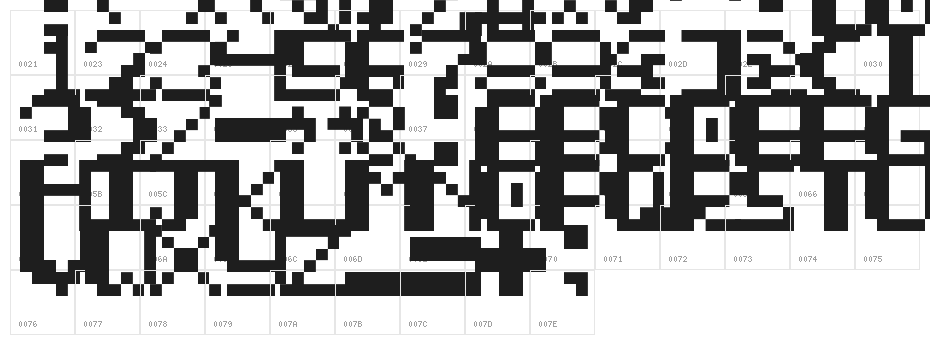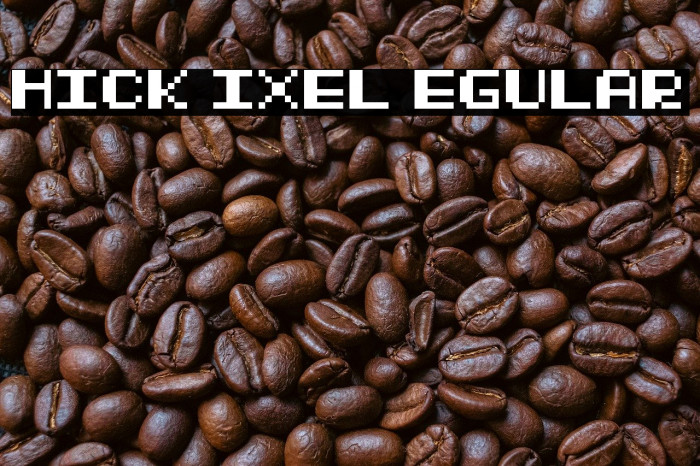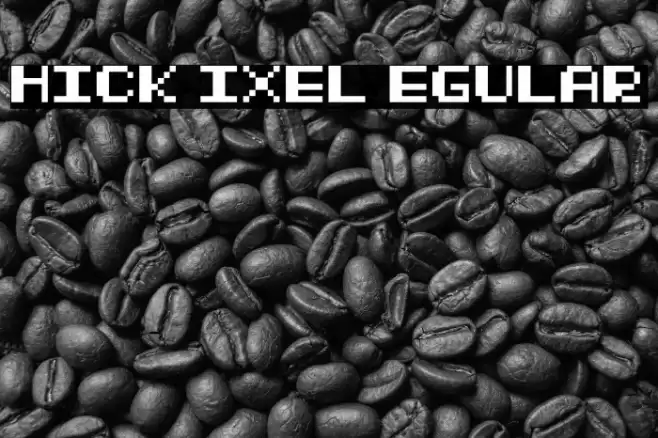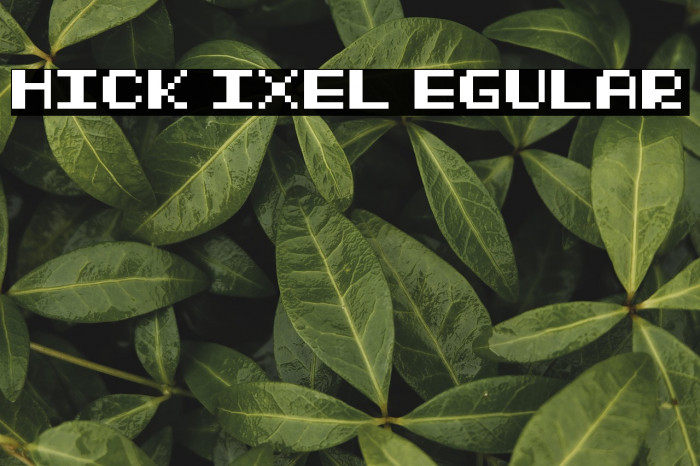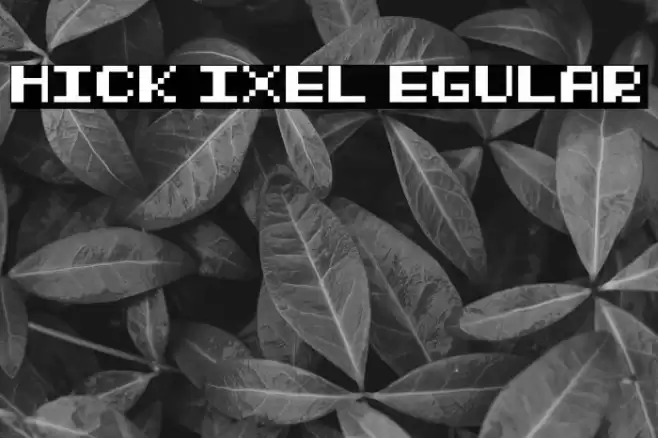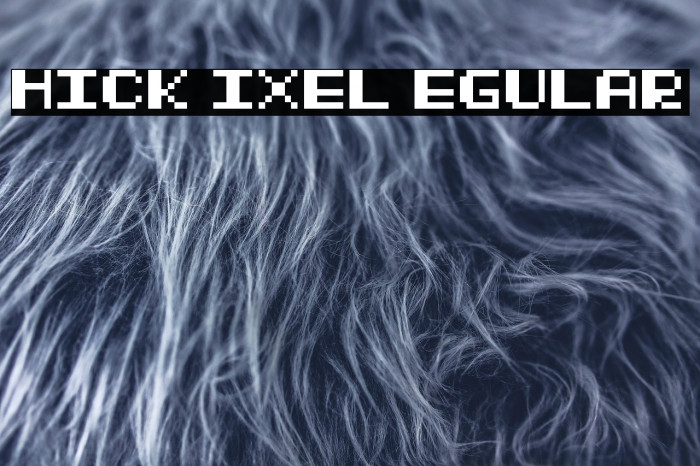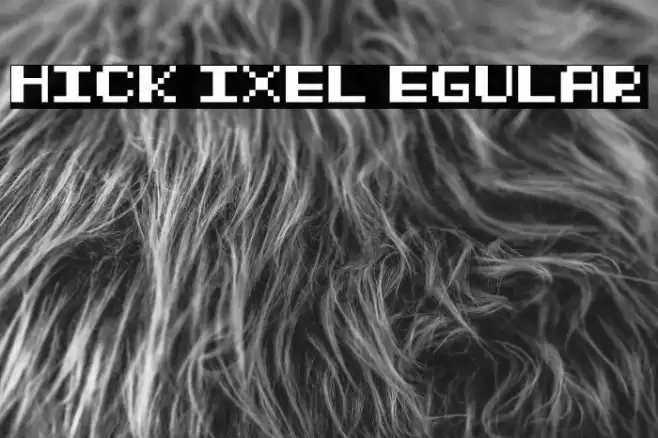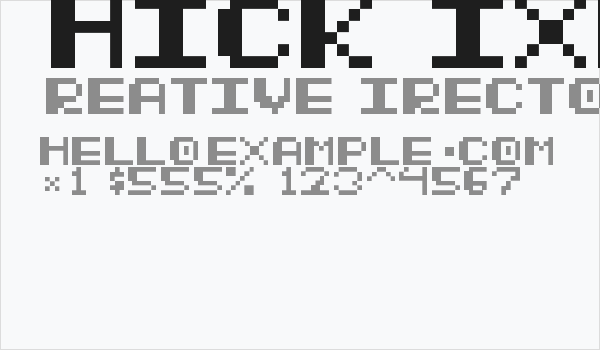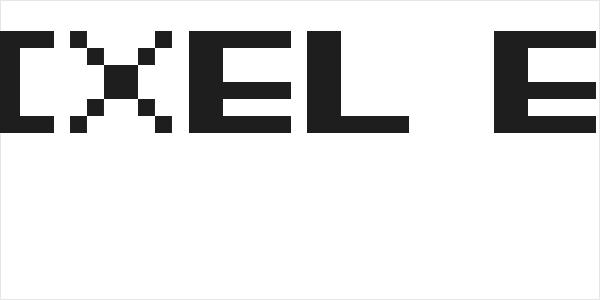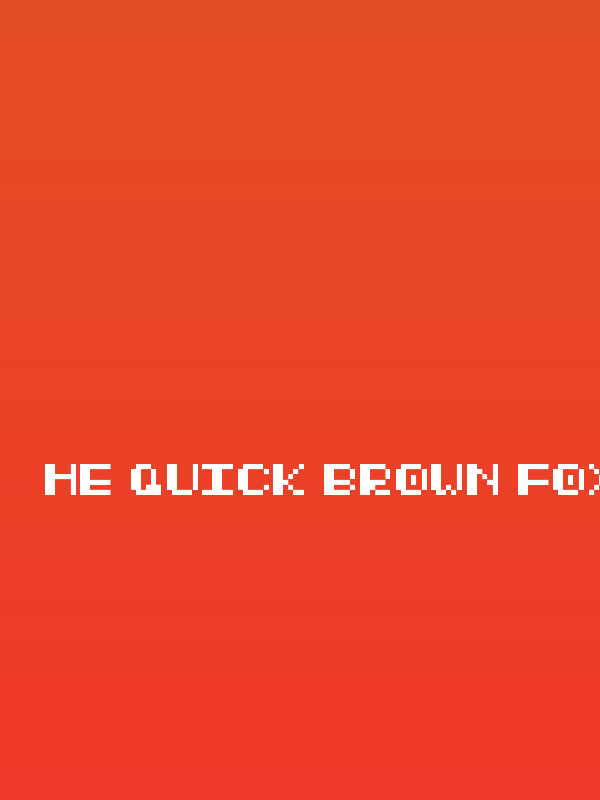
Thick Pixel Regular Font
Thick Pixel Regular Description
This font features a bold, pixelated design reminiscent of classic video game graphics. Each character is constructed with a blocky, grid-like appearance, emphasizing a retro digital aesthetic. The uniformity in height and width across characters creates a cohesive and structured look. The font is highly legible, with distinct separation between each letter and number, making it suitable for digital displays and retro-themed projects. The special characters maintain the same pixelated style, ensuring consistency throughout the character set.
A bold, pixelated font with a retro digital aesthetic from Regular fonts.
- Proposed Projects: Ideal for video game design, retro-themed posters, digital art projects, and any creative work that requires a nostalgic, digital look.
- Overall Style: Retro, Digital
- Use Case: Headlines, Logos, Digital displays